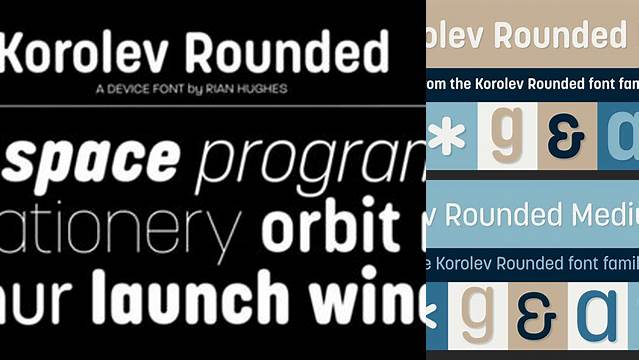
Hey guys! Ever stumbled upon a font that just clicks? Something that feels both modern and approachable? Well, let's talk about Korolev Rounded, a font that might just be your next favorite. In this guide, we’re diving deep into everything you need to know about snagging the Korolev Rounded regular font for free, legally and safely. We'll cover its features, uses, and where to find it. Let's get started!
What is Korolev Rounded Font?
Before we jump into how to get your hands on Korolev Rounded, let’s understand what makes it so special. Korolev Rounded is a typeface known for its clean, modern design and rounded edges. This makes it incredibly versatile, suitable for everything from logos and branding to body text in websites and print materials. Its clarity ensures readability, while its rounded corners give it a friendly and approachable feel. The Korolev Rounded regular font is part of a font family that includes various weights and styles, but the regular version is often favored for its balance and legibility. This font exudes a contemporary feel, making it a popular choice for designers aiming for a sleek yet accessible look. It’s particularly effective in designs targeting a younger audience or those that require a touch of warmth and friendliness.
Why Choose Korolev Rounded Regular?
Why should you choose Korolev Rounded Regular over other fonts? Well, there are several compelling reasons. First, its versatility. Whether you're designing a website, creating marketing materials, or crafting a logo, this font adapts seamlessly. Second, its readability. The clear, rounded shapes make it easy on the eyes, ensuring your message is conveyed effectively. Third, its modern aesthetic. Korolev Rounded regular font gives your designs a contemporary edge, helping you stand out from the crowd. Fourth, the friendly vibe. The rounded corners add a touch of warmth and approachability, making your content more inviting. Overall, if you're looking for a font that combines style, functionality, and a welcoming feel, Korolev Rounded Regular is an excellent choice. And let's be real, who doesn't love a font that makes their work look effortlessly cool?
Using Korolev Rounded for Web Design